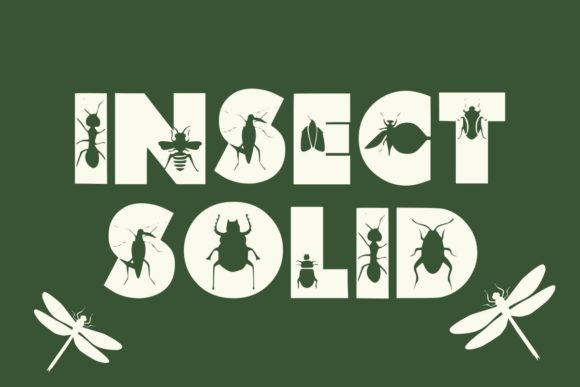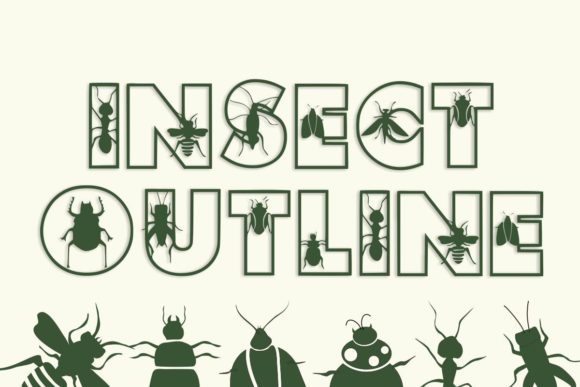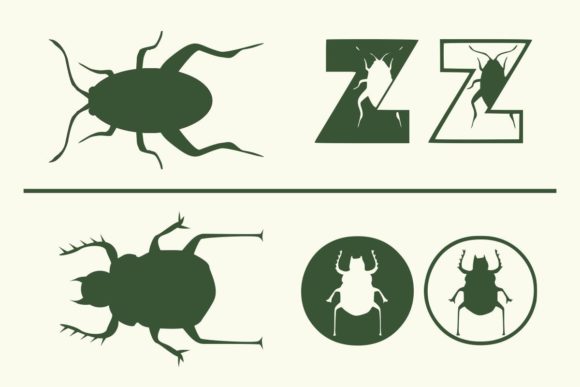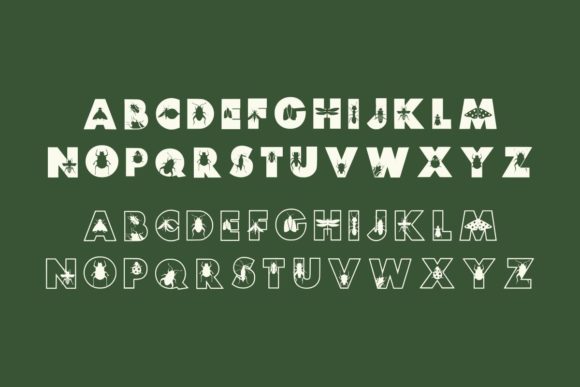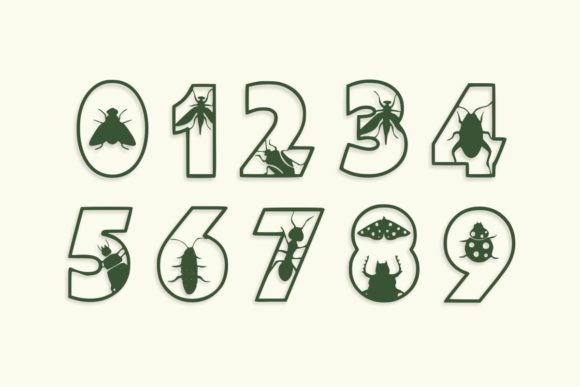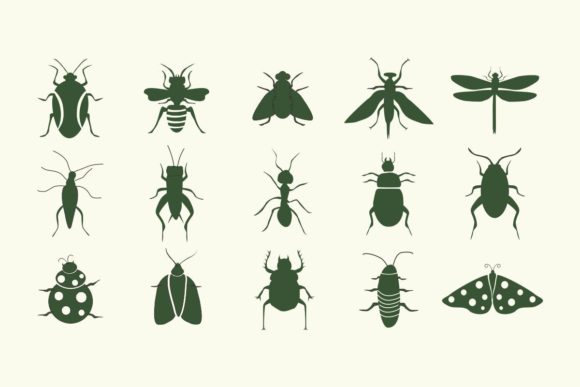
Discover the Joy of Insect AZ Font
Have you ever sat down with a blank canvas, a fresh sheet of paper, or an empty design file, feeling inspired but unsure of where to start? That’s when the magic happens – when creativity strikes and you’re suddenly flooded with ideas. For designers and crafty enthusiasts, those moments are the spark that sets off a chain reaction of innovation and self-expression.
One of the fonts that can help bring those ideas to life is the Insect AZ Font, a delightfully unique and quirky decorative font that exudes joy and playfulness. Perfect for adding a touch of whimsy to your designs, this font is a valuable addition to any designer’s toolkit. Whether you’re creating digital art, crafting greeting cards, or designing presentations, the Insect AZ Font is sure to bring a smile to your face and a dash of excitement to your projects.
Insect AZ Font Key Features
- Font Style: Insect AZ is a sans-serif font with a unique insect-inspired design.
- Characteristics: Unique insect-inspired design, with a futuristic and high-tech feel.
Design Review: Insect AZ Font
I recently had the chance to work with the Insect AZ Font, and overall, I found it to be an interesting choice for a design project. ✨ Here are some aspects where it shines:
- Unique aesthetic: The Insect AZ Font has a quirky, insect-inspired design that can add a touch of whimsy to your project.
- Friendly readability: Despite its unconventional design, the font is surprisingly easy to read, making it a great choice for body text.
- Customization options: The font comes in a range of weights and styles, allowing for a good deal of customization to suit your design needs.
- Limited legibility at small sizes: While the font is readable at larger sizes, it can become difficult to decipher at smaller point sizes.
- Lack of professional polish: The font’s unconventional design may not be suitable for all types of projects, particularly those requiring a more formal or corporate tone.
Overall, I found the Insect AZ Font to be a fun and creative choice for projects that require a unique aesthetic. While it may not be suitable for all projects, it can be a great addition to your design toolkit when used in the right context.
Tips for Getting the Most Out of Insect AZ Font
Use Insect AZ Font for titles, headings, and other emphasis to add visual interest to your designs.
Combine Insect AZ Font with other fonts for a unique and creative look.
Use Insect AZ Font for:
Children’s book covers and illustrations
Food and drink branding
Wildlife and nature-themed designs